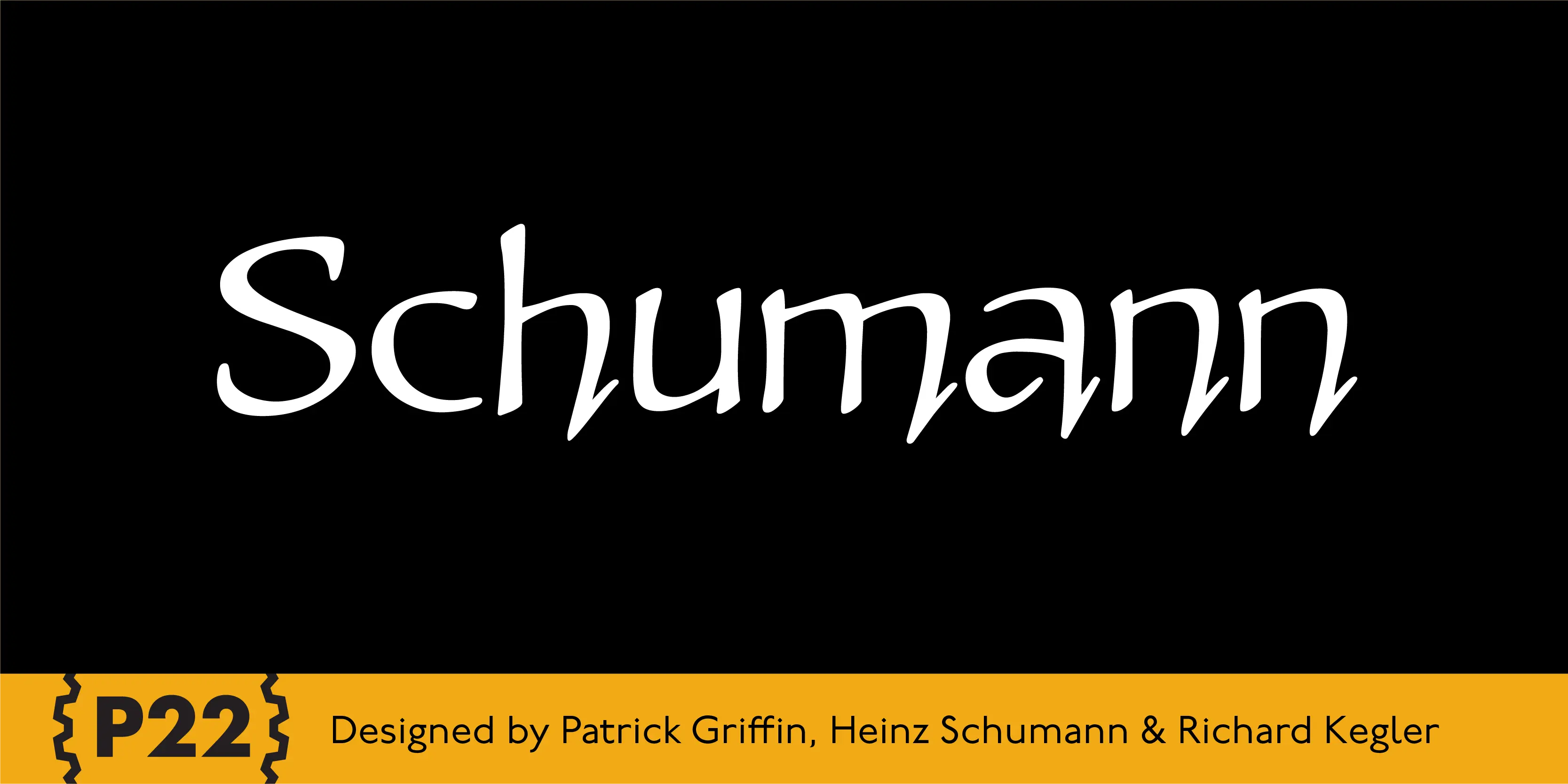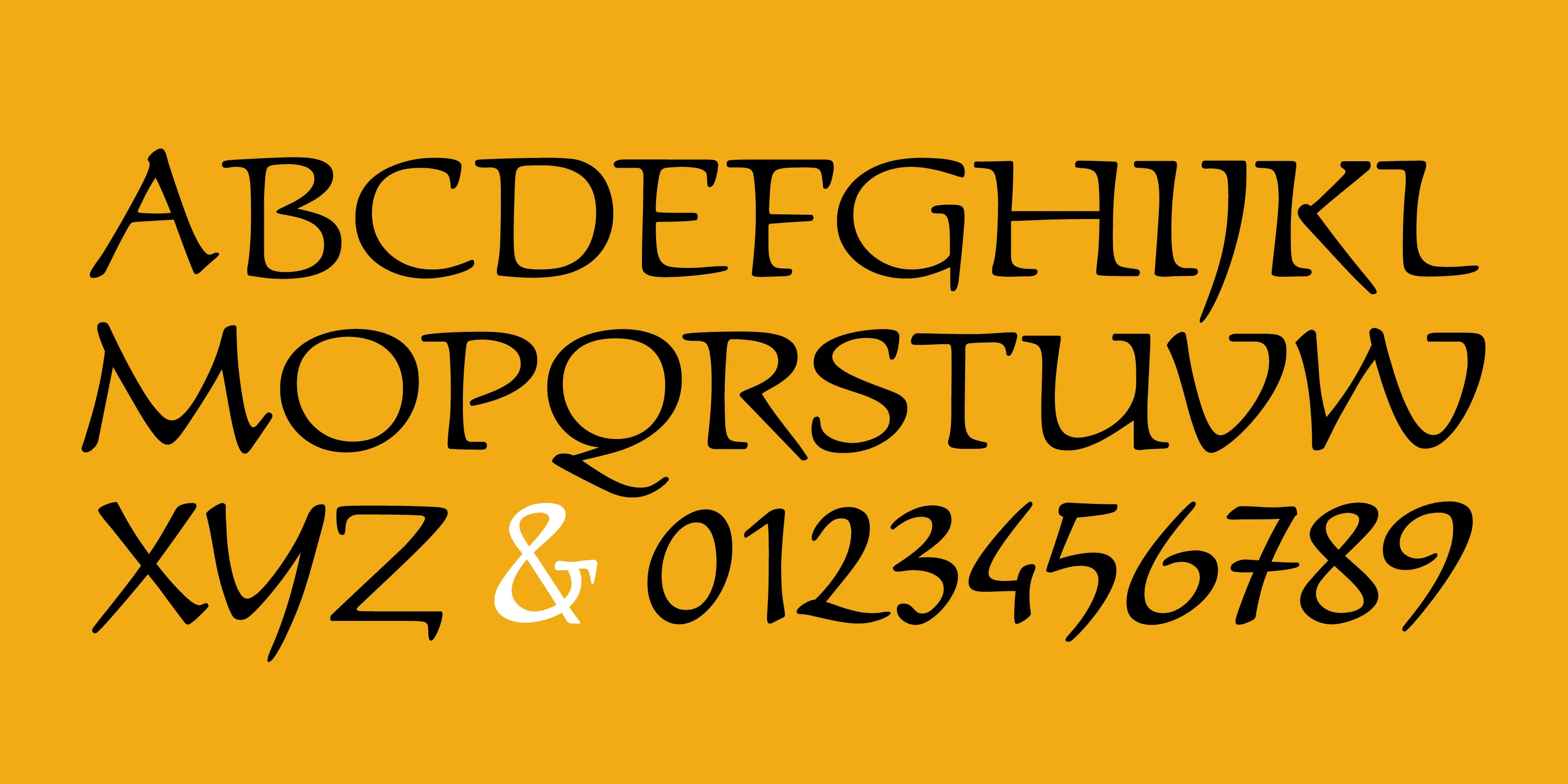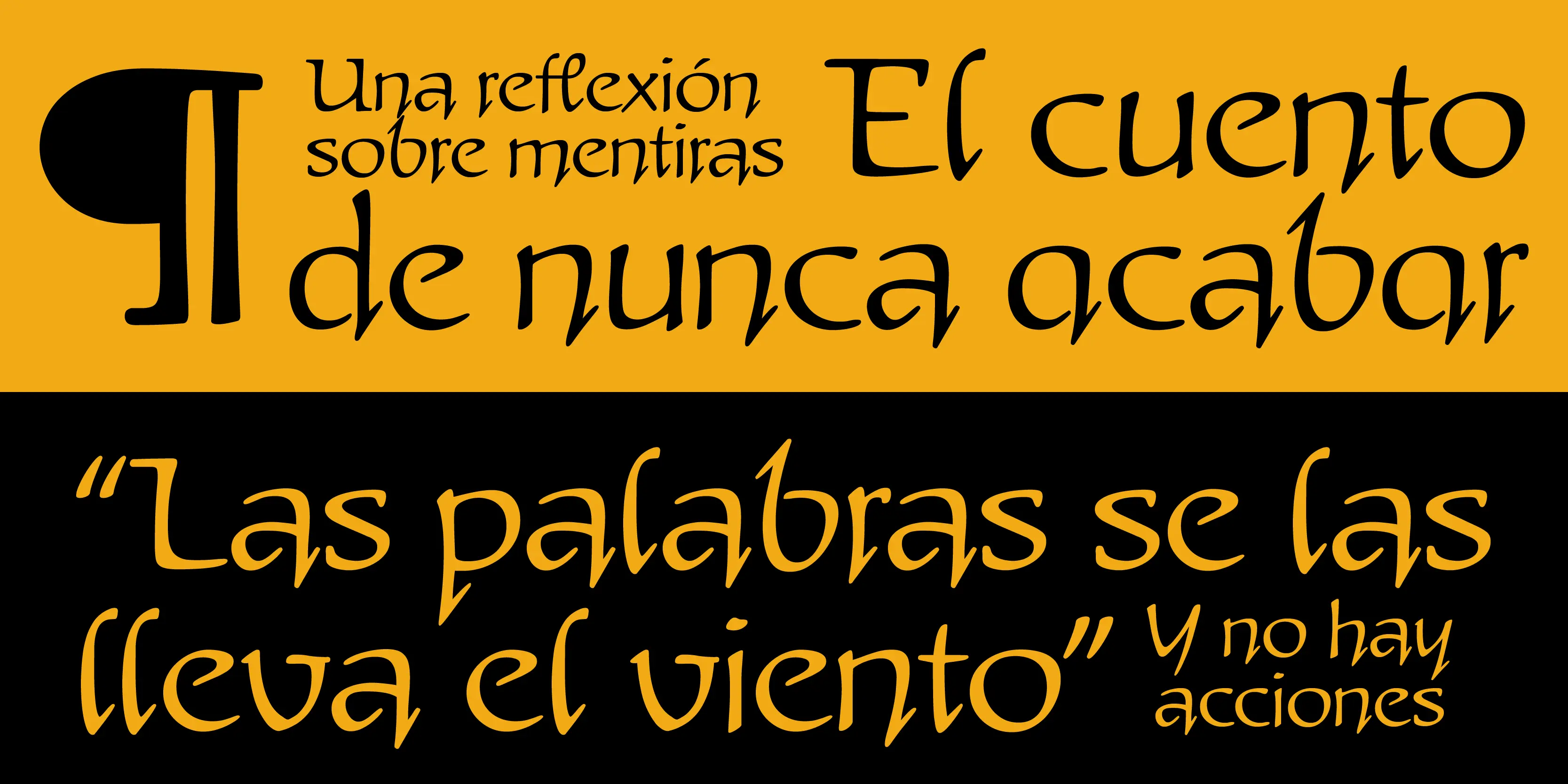
Schumann
Schumann Pro is the very first issue of a long lost early 1960s typeface project done by Heinz Schumann while he was at the University of Graphics and Book Design in Leipzig, where he studied under German type design giants Albert Kapr and Herbert Thannhaeuser. This alphabet was never published as a typeface, but Schumann went on to design Stentor for Typoart a couple of years after graduating. Albert Kapr’s influence is unmistakable in this playful upright script, especially in the wide and breezy capital forms. Unique exit strokes and serif placement work together to define the bouncy rhythm of this face. This is an expressive original alphabet that successfully bridges the gap between expert calligraphy and everyday sign lettering. P22 Schumann Pro comes with over 500 glyphs, which include plenty of alternates, quite a few ligatures, and extended Latin language support. It is a very effective font when used sparingly in packaging, signage, posters and things designed to catch the eye.
- Common Ligatures
- Discretionary Ligatures
- Fractions
- Ordinal Numerals
- Stylistic Alternates
- Stylistic Sets
- Subscript
- Superscript
- Swashes